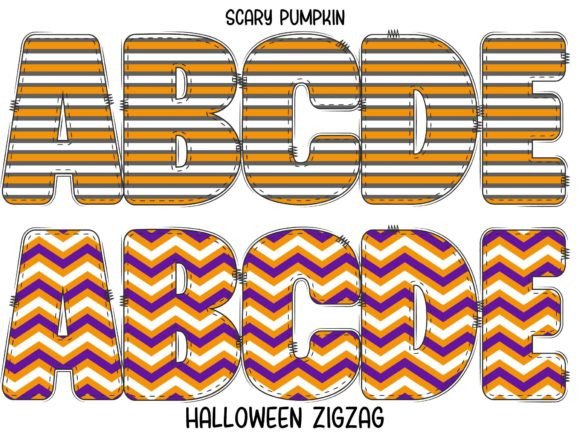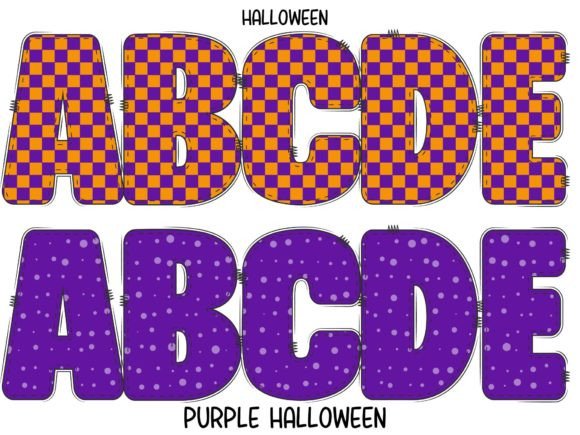
Unleash the Spooky Spirit: A Comprehensive Guide to Halloween Font
Halloween is just around the corner, and with it comes the excitement of creating spooky and fun designs. Whether you’re a designer, crafter, or simply a Halloween enthusiast, having the right font can make all the difference in bringing your creative ideas to life. That’s where the Halloween Font comes in – a cute and fun Halloween-styled detailed colored font that’s perfect for adding a touch of eerie elegance to your projects.
What is Halloween Font?
Halloween Font is a specially designed font that captures the essence of Halloween. Its unique and playful style makes it an ideal choice for a wide range of applications, from Halloween-themed party invitations and decorations to horror-themed movie posters and video game titles. The font’s detailed and colored design adds an extra layer of depth and visual interest, making it stand out from more traditional fonts.
Why Use Halloween Font?
So, why choose Halloween Font over other fonts? Here are just a few reasons why it’s a cut above the rest:
- Perfect for Halloween and horror-themed designs: The font’s spooky and playful style makes it an obvious choice for Halloween and horror-themed projects.
- Cute and fun: The font’s cute and fun design makes it perfect for creating designs that are both spooky and adorable.
- Detailed and colored: The font’s detailed and colored design adds an extra layer of depth and visual interest to your designs.
- Incredibly versatile: Halloween Font can be used in a wide range of applications, from digital designs to print projects.
How to Use Halloween Font
Using Halloween Font is easy. Here are a few tips to get you started:
- Pair it with other fonts: Combine Halloween Font with other fonts to create a unique and eye-catching design.
- Experiment with colors: The font’s colored design makes it easy to experiment with different colors and combinations.
- Add it to your designs: Use Halloween Font in your Halloween and horror-themed designs to add a touch of spooky elegance.
Halloween Font is a game-changer for designers and crafters. Here are just a few benefits of using this amazing font:
- Save time: With Halloween Font, you can create professional-looking designs in no time.
- Stand out from the crowd: The font’s unique and playful style makes it easy to create designs that stand out from the crowd.
Here are a few tips and tricks to help you get the most out of Halloween Font:
- Use it in combination with images: Combine Halloween Font with spooky images to create a design that’s both eerie and elegant.
- Experiment with different sizes: The font’s detailed design makes it perfect for use in a variety of sizes, from small titles to large headings.
- Make it your own: Don’t be afraid to experiment with different colors and combinations to make Halloween Font your own.
In conclusion, Halloween Font is a must-have for designers and crafters who want to create spooky and fun designs. Its unique and playful style makes it perfect for a wide range of applications, from Halloween and horror-themed projects to cute and fun designs. With its detailed and colored design, Halloween Font is sure to add a touch of eerie elegance to your creative ideas. So why wait? Download Halloween Font today and unleash the spooky spirit in your designs!